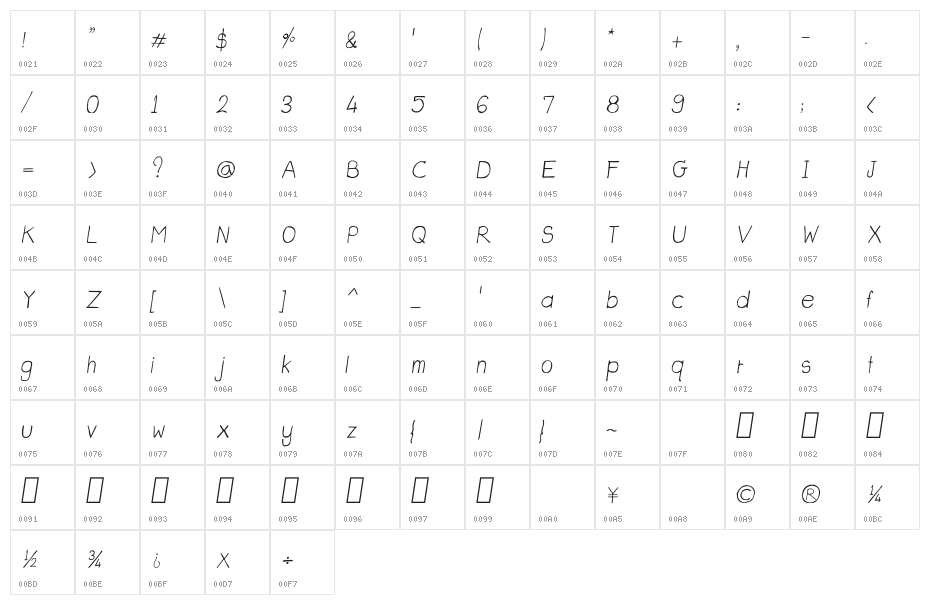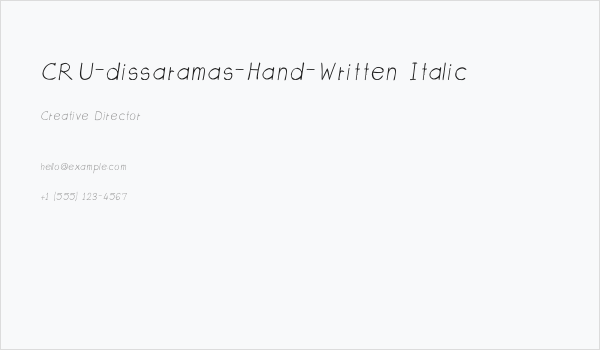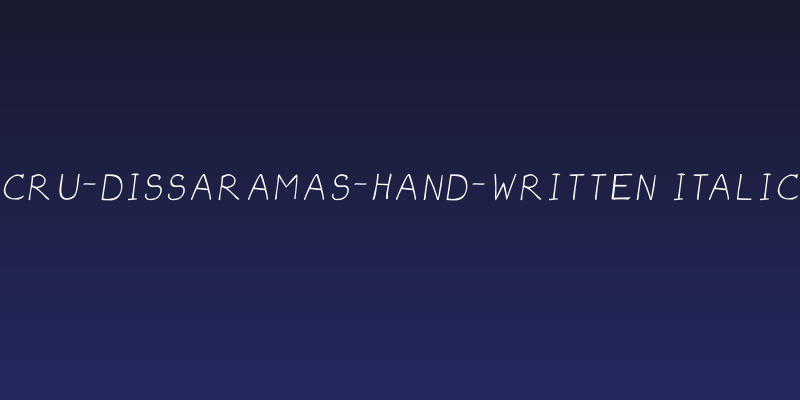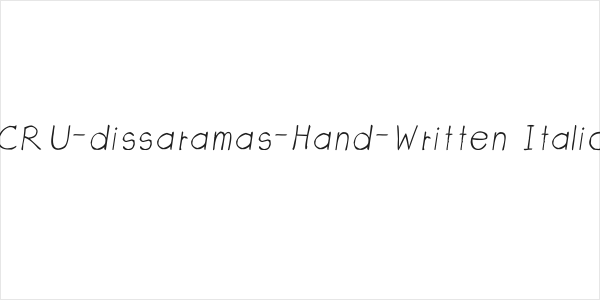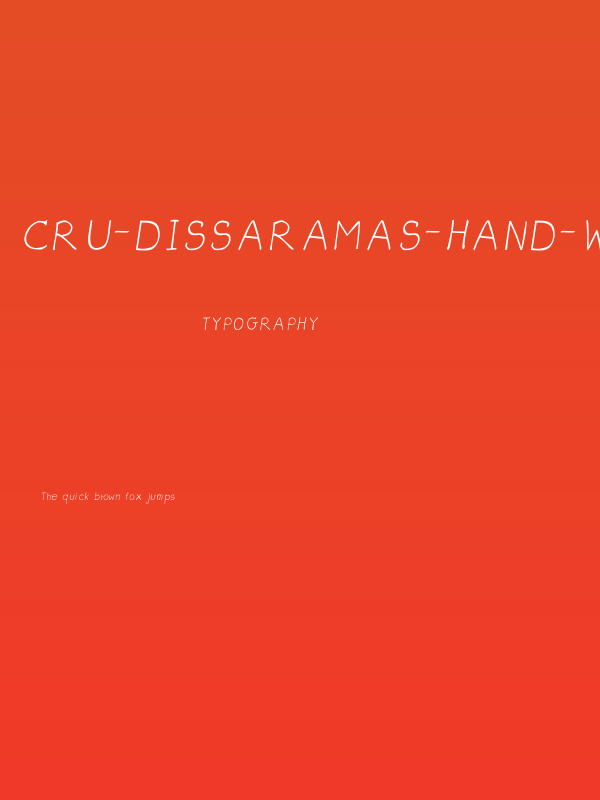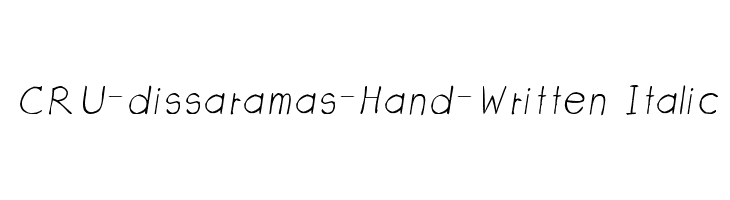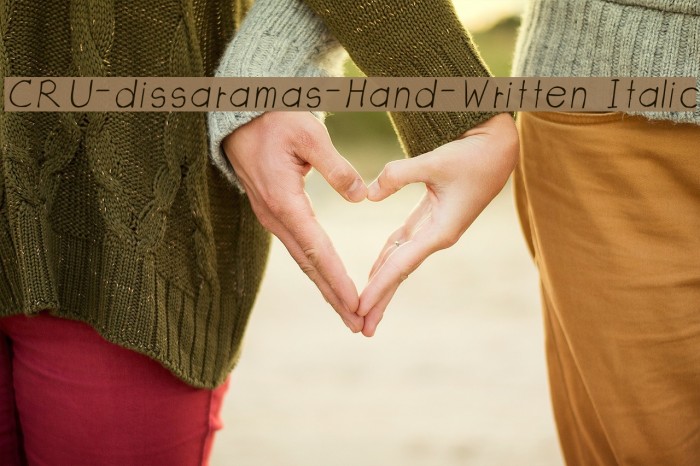
CRU-dissaramas-Hand-Written Italic Font
CRU-dissaramas-Hand-Written Italic Description
This font features a charming handwritten style with a slight italic slant, giving it a casual and personal feel. The characters are crafted with a consistent stroke width, maintaining a uniform appearance throughout. The uppercase letters are slightly taller than the lowercase, adding a touch of elegance and readability. The numbers and special characters are designed to match the overall aesthetic, ensuring a cohesive look. The font's playful yet sophisticated style makes it suitable for a variety of creative projects.
| Use Case | Headlines, Logos, Invitations |
| Proposed Projects | Ideal for greeting cards, personal notes, invitations, and creative branding projects. |